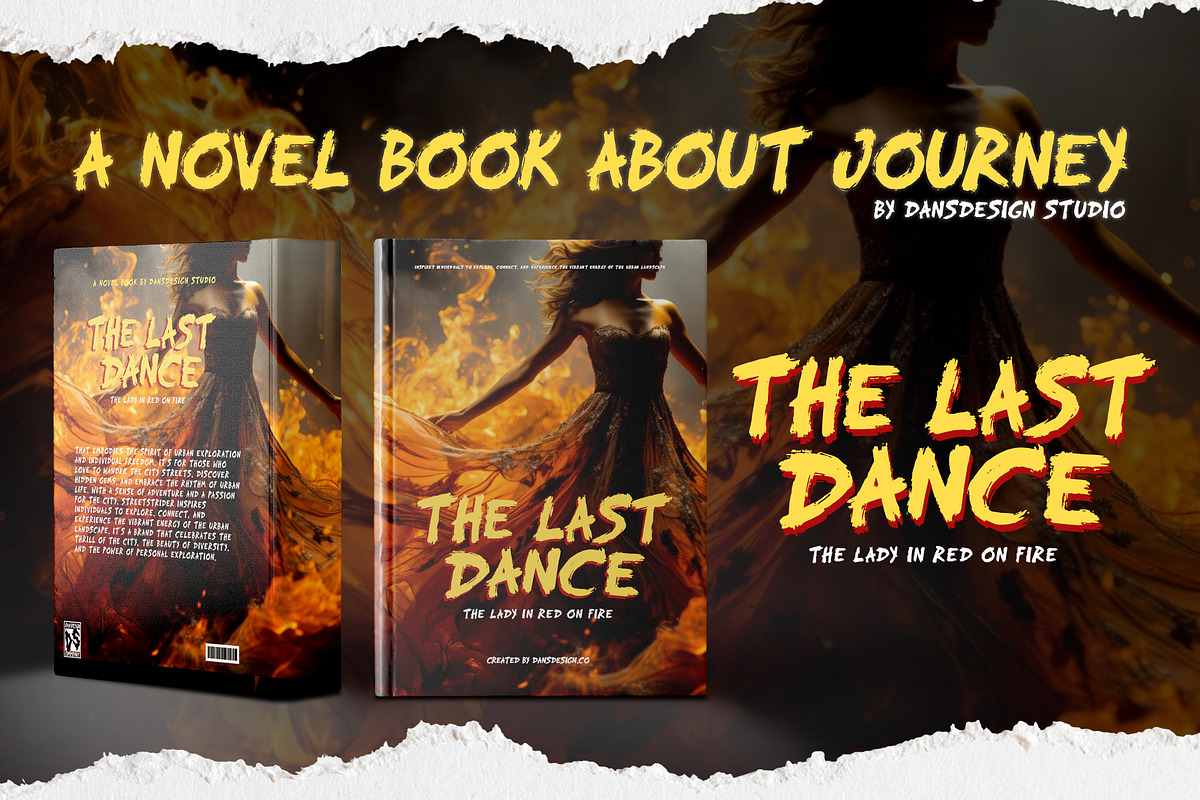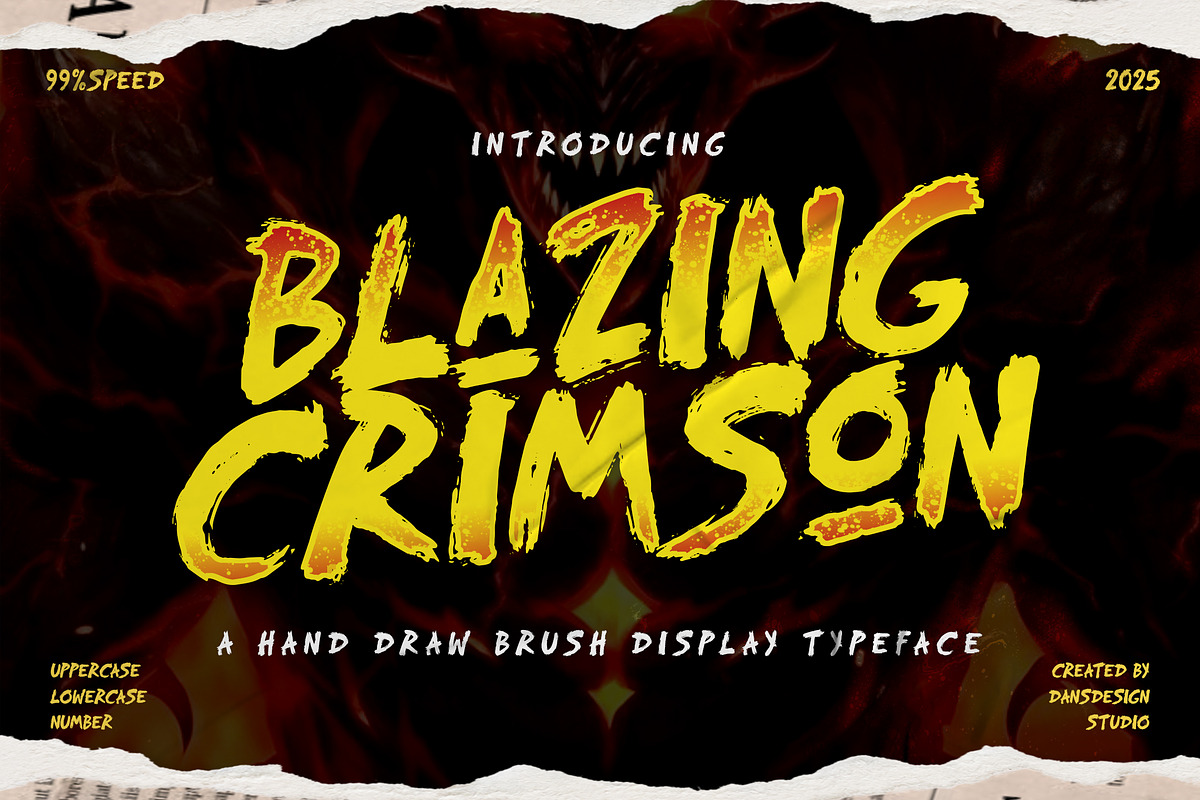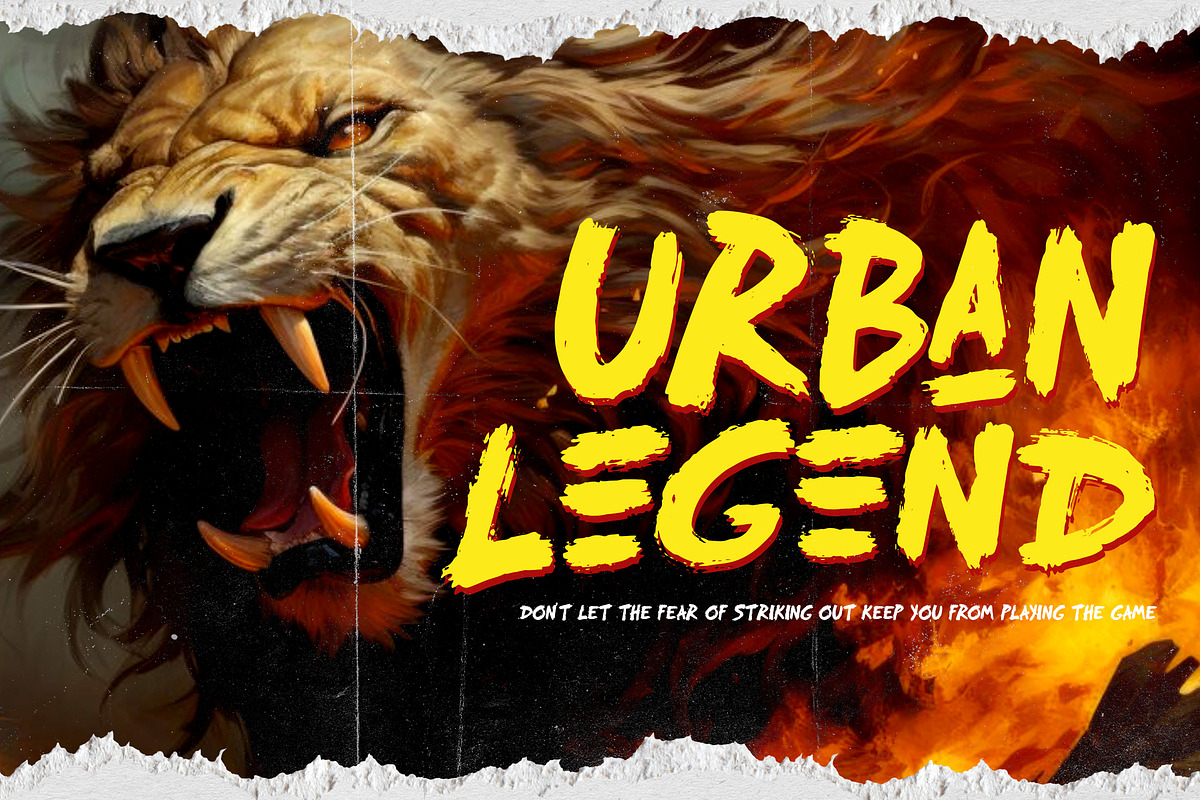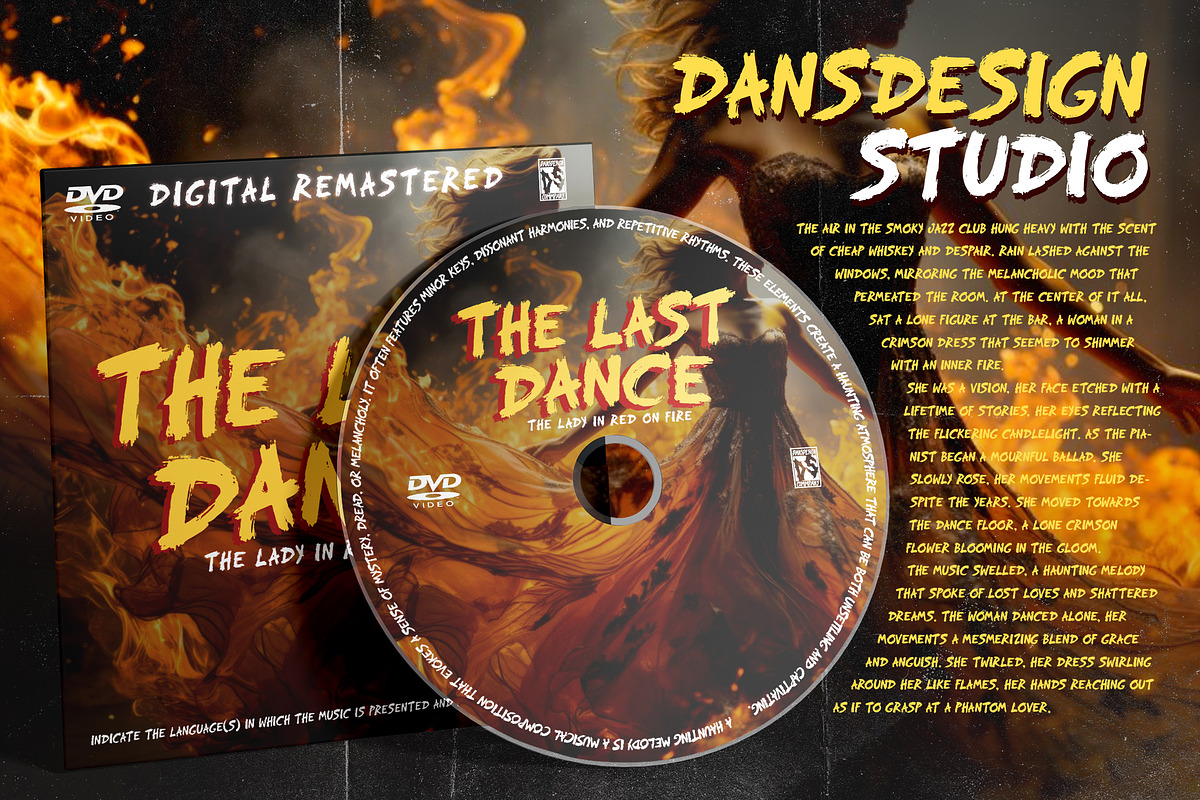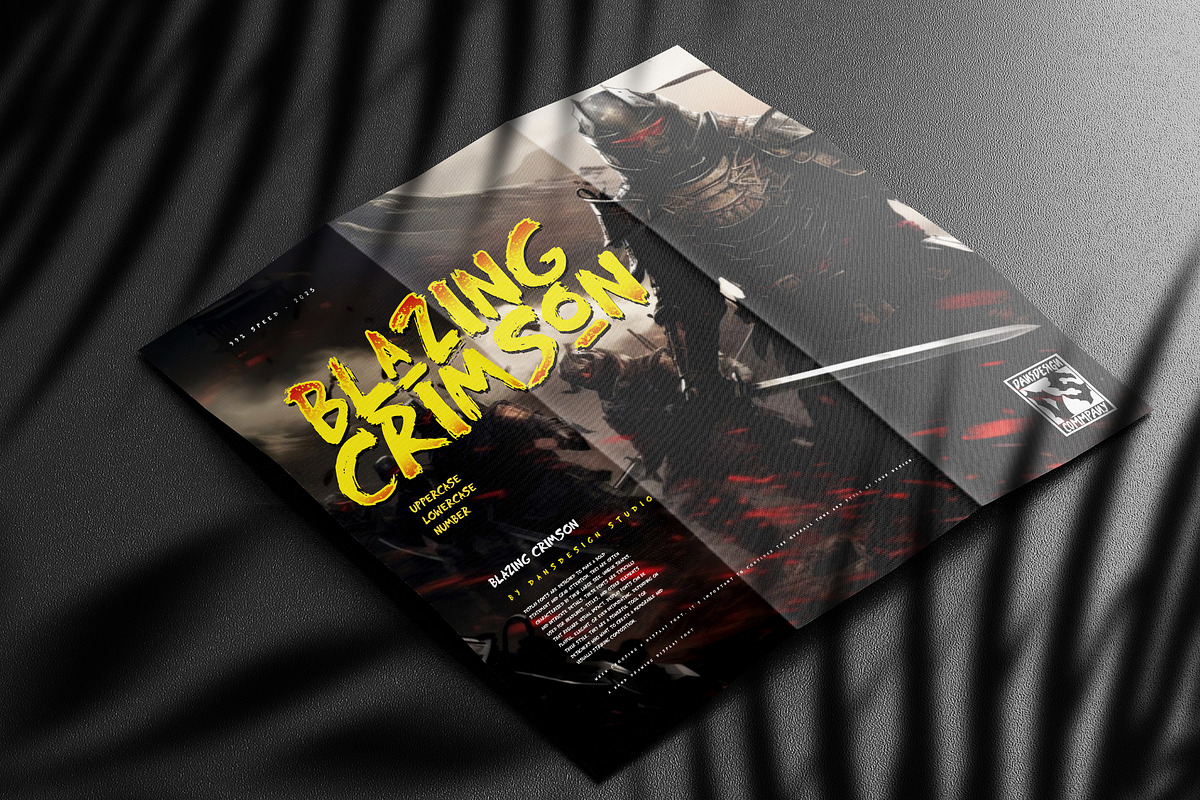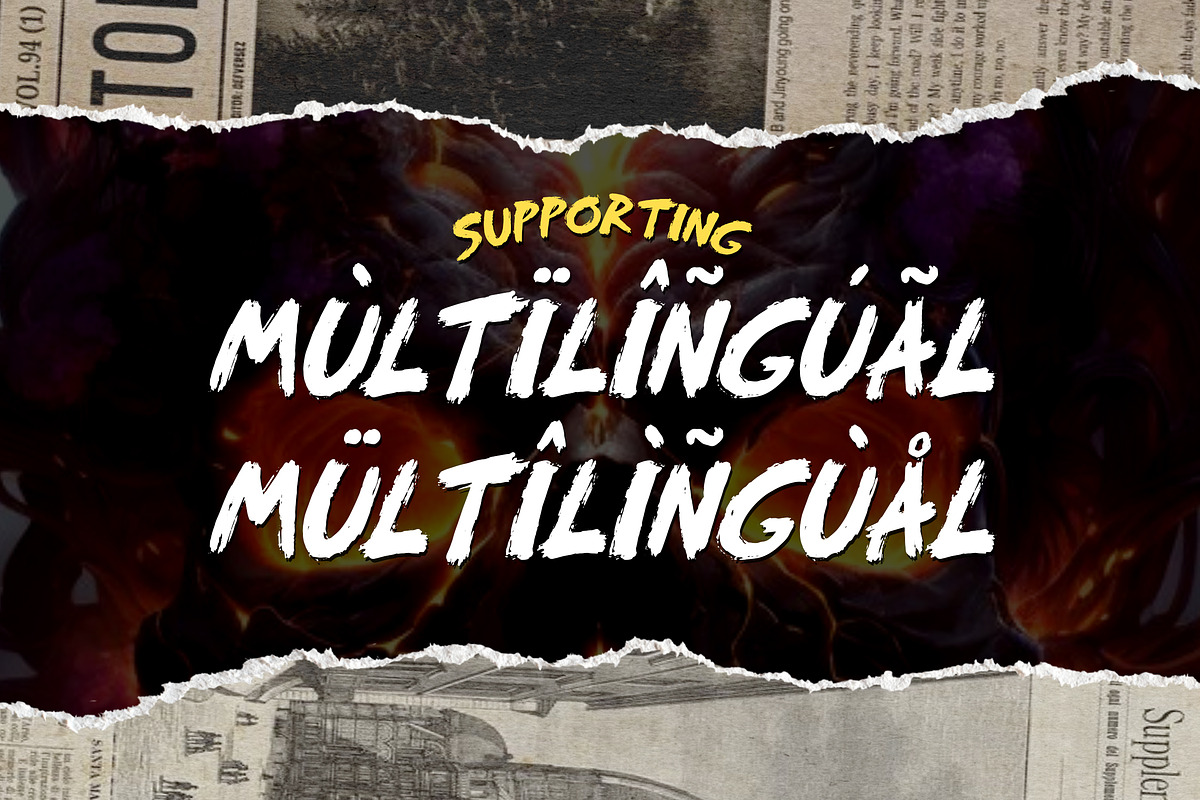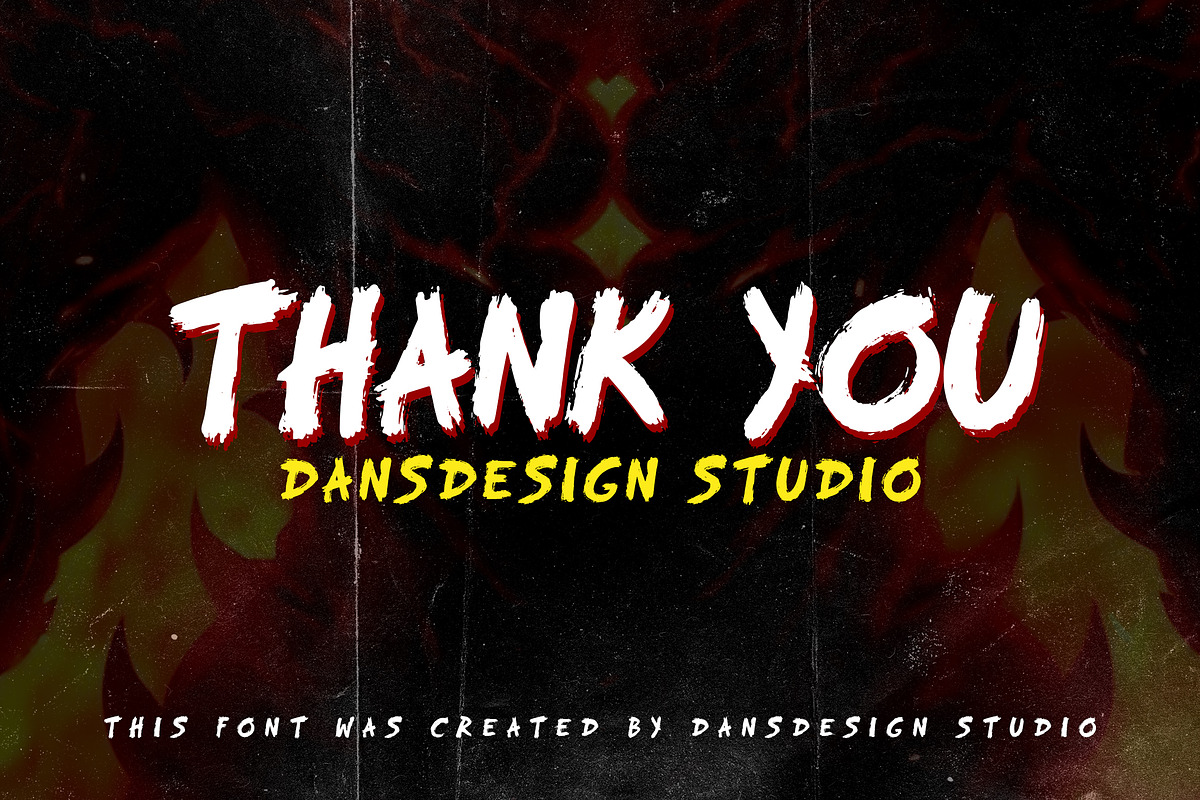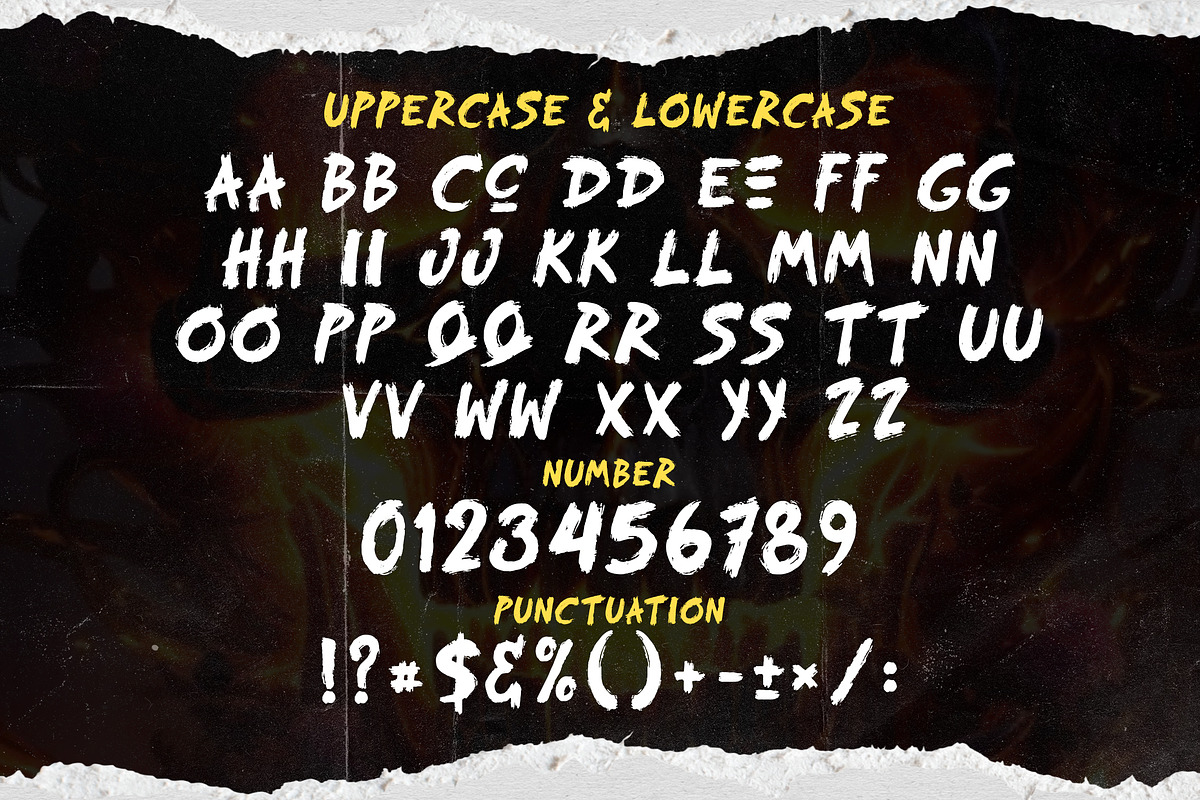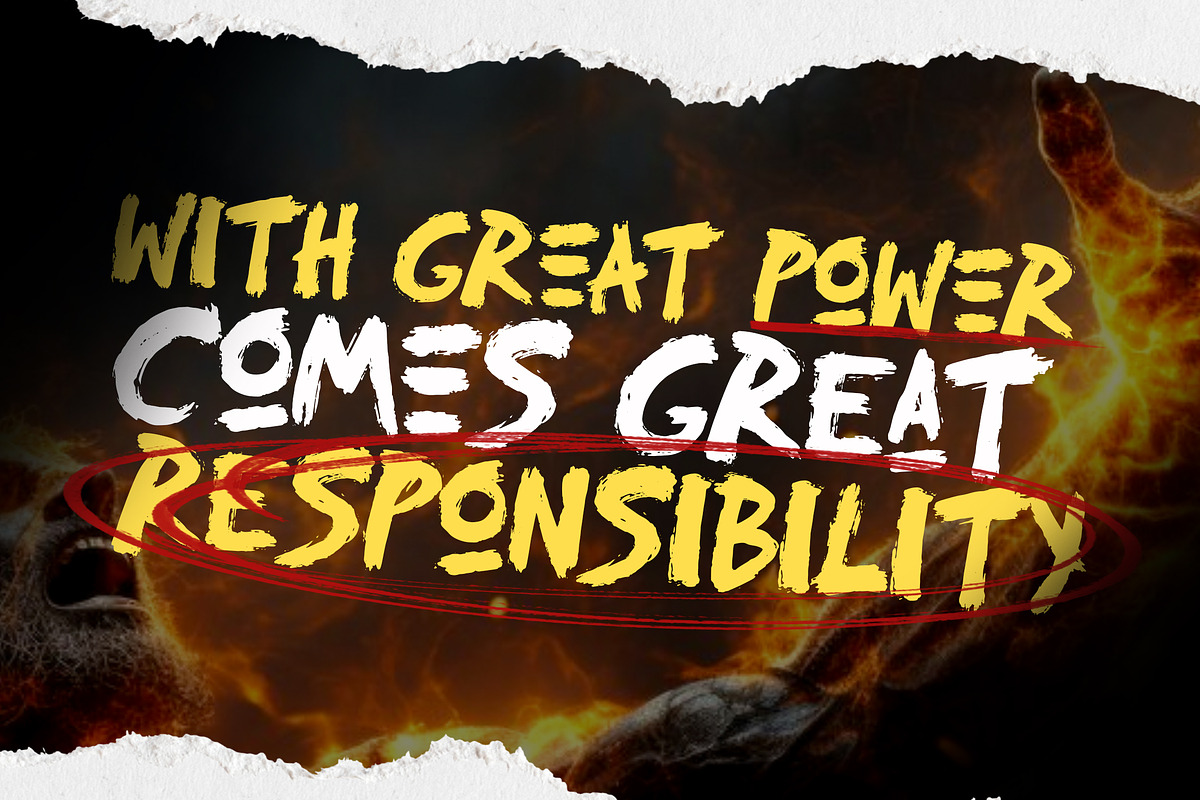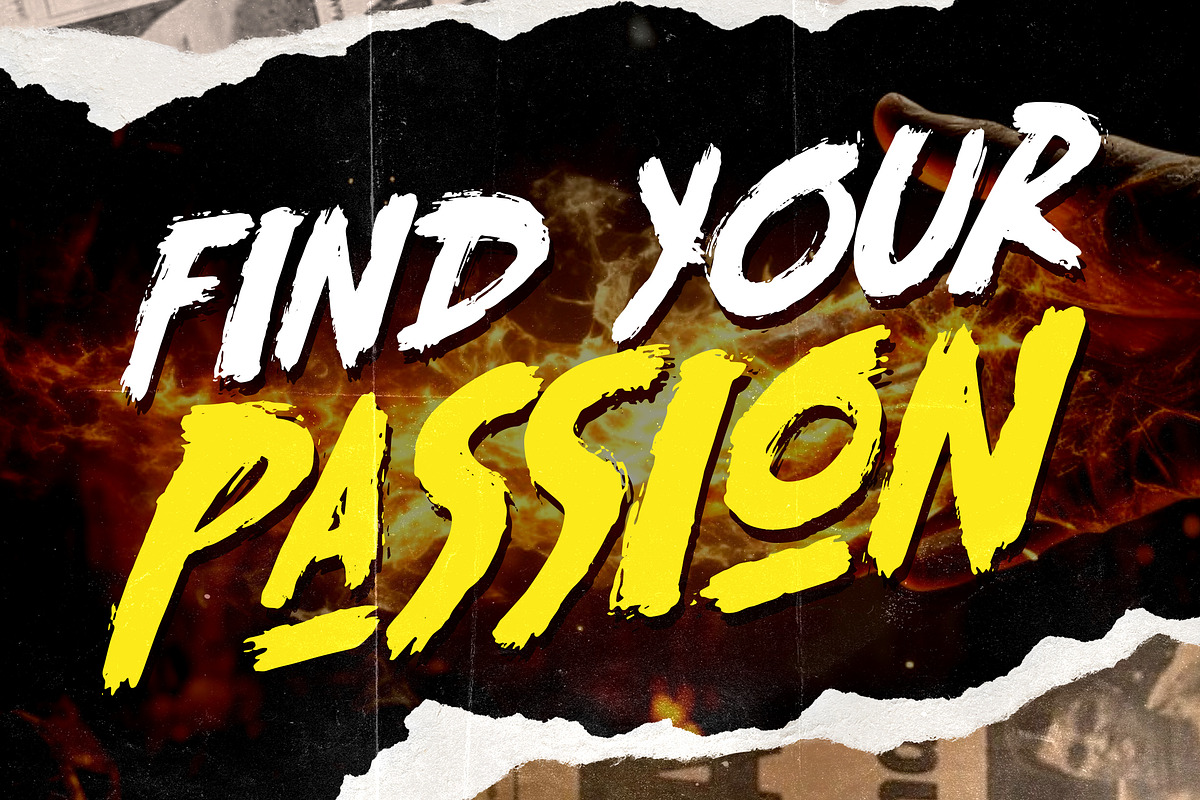
Blazing Crimson – Hand-Drawn Brush
Blazing Crimson – Hand-Drawn Brush Font for Horror, Rock Music, Extreme Sports, and Urban Designs
Blazing Crimson is a bold hand-drawn brush display font designed for high-impact visuals and fast-paced aesthetics. With aggressive strokes and grunge texture, this font is perfect for horror titles, punk rock album covers, extreme sports posters, and streetwear branding. Every letter screams with motion, energy, and attitude—making your design stand out in bold rebellion.
Horror movie posters & thriller titles Punk rock, metal, or hardcore album art Skateboard, motocross, and extreme sports merchandise Urban streetwear logo & apparel design Grunge flyer templates & underground zines Action game titles and YouTube thumbnails
Handcrafted brush style with edgy, rough texture Dynamic stroke variations for intense visual appeal Multilingual support with accented characters PUA encoded for full glyph access Includes numbers & punctuation (OpenType features) Formats: OTF / TTF / WOFF / WOFF2
Bring raw energy to your visuals with this grunge brush typeface. Blazing Crimson is the ultimate font for horror, rock, and rebellious design projects.